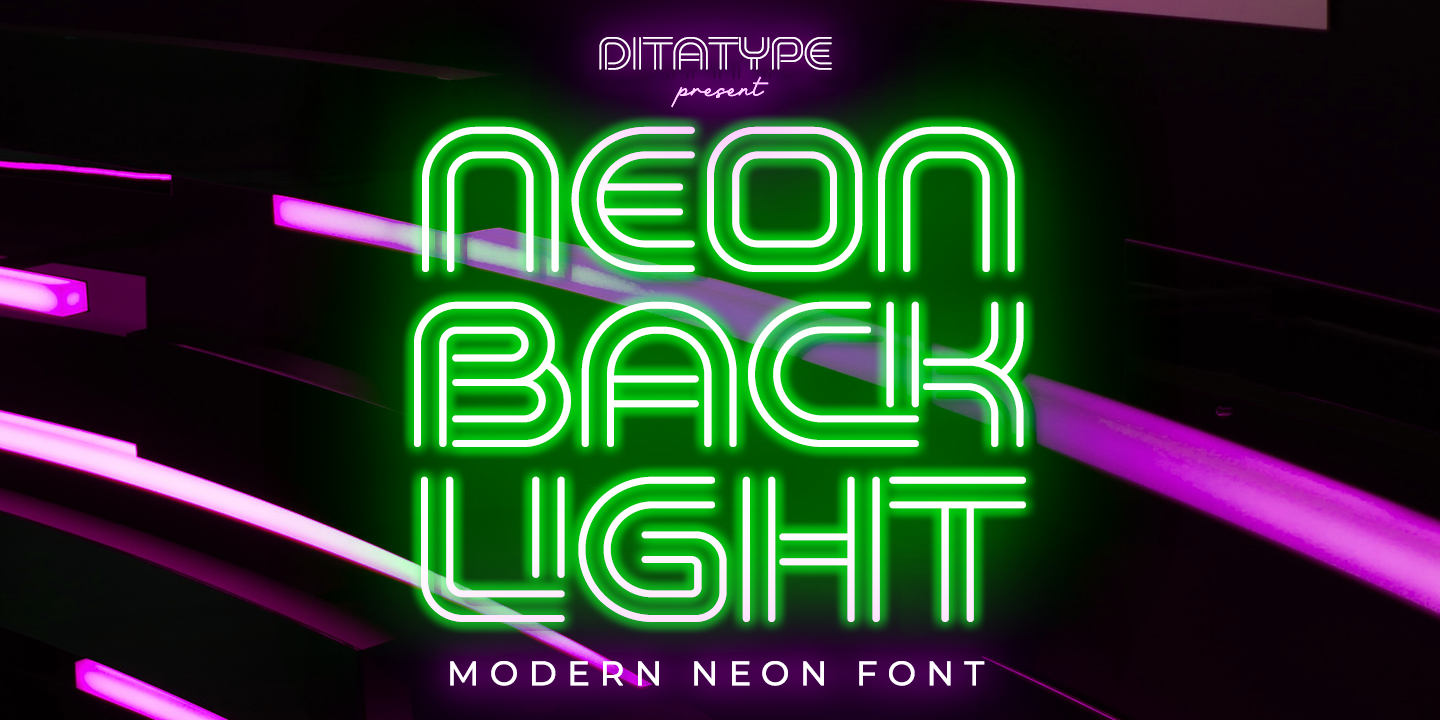
Neon Backlight Font is perfect for nightclub branding, synthwave music promotions, cyberpunk gaming interfaces, neon bar signage, electronic music festival advertising, futuristic movie titles, retro arcade game graphics, LED display systems, nighttime entertainment venues, and vibrant digital art projects. Its electrifying neon character makes it ideal for projects requiring luminous energy and electric nightlife atmosphere.
What makes Neon Backlight Font exciting is its brilliant capture of electric nightlife energy and neon-lit urban aesthetics with glowing letterforms and luminous characteristics that transport viewers to vibrant city nights and pulsating electronic environments. The font features radiant stroke effects, electric color possibilities, and illuminated character construction that create authentic neon atmosphere and nightclub appeal. Its electrifying personality brings energy and excitement to contemporary designs while maintaining the visibility essential for nighttime applications and digital display systems. The carefully crafted luminous elements ensure maximum visual impact while preserving the distinctive character that embodies the essence of electric nightlife and neon brilliance excellence.
Neon Backlight Font comes in multiple luminous variations including Regular, Bold, Glow, Outline, and Electric styles. Each family member amplifies the distinctive neon character while offering different levels of illumination intensity and electric appeal. The complete font family includes alternate characters, electric symbols, and glowing decorative elements that provide comprehensive tools for creating immersive neon design experiences and authentic nightlife brand storytelling.
Whether you're developing nightlife brands, electronic music projects, or futuristic entertainment ventures, Neon Backlight Font Free Download provides the electric energy needed to captivate audiences seeking vibrant nightlife experiences and electronic entertainment. The font's luminous appeal resonates with club-goers, electronic music fans, and digital art enthusiasts seeking authentic neon credibility and electric sophistication. Its comprehensive character set includes electric symbols and neon marks, making it perfect for creating complete nightlife brand systems and memorable electric storytelling across diverse entertainment applications and luminous design projects that celebrate neon artistry and electric atmosphere excellence.